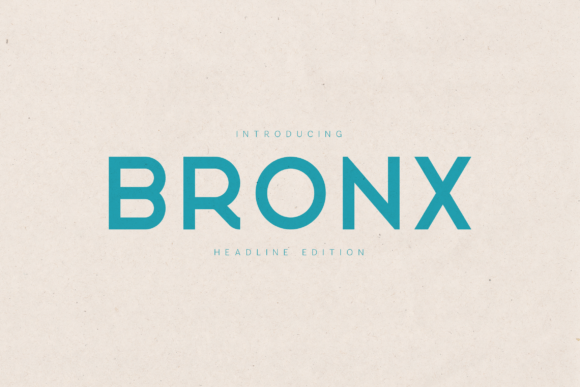
The Power of Bronx Headline: Elevate Your Design with Confidence
I still remember the frustration of working on a project, pouring my heart and soul into every detail, only to be held back by a font that just didn’t cut it. The client wanted something bold, modern, and attention-grabbing, but I was stuck with a bland, generic sans serif that failed to make an impact. That’s when I discovered Bronx Headline, a game-changing font that has since become a staple in my design toolkit.
Bronx Headline: A Modern Sans Serif Powerhouse
Bronx Headline is a bold, modern sans serif font designed specifically for powerful headlines, strong branding, and contemporary typography. Its clean geometric forms and confident letter shapes deliver clarity, impact, and versatility across both print and digital projects. This font is perfectly suited for headlines, posters, logos, editorial layouts, packaging, and modern brand identities, making it an excellent choice for fashion, lifestyle, corporate, and creative industries.
So, what makes Bronx Headline so special? Here are a few things I love about this font:
- ✨ Clean and modern design: Bronx Headline boasts a sleek, professional aesthetic that’s perfect for making a statement.
- ✅ Excellent readability: Even at smaller sizes, this font remains clear and legible, making it ideal for body text and captions.
- 💡 Versatility: From headlines and posters to logos and editorial layouts, Bronx Headline adapts seamlessly to various design applications.
- 🎨 OpenType features: This font comes with a range of OpenType features, including stylistic alternates, ligatures, and glyphs, giving you plenty of creative options.
While Bronx Headline is an exceptional font, it’s not without its quirks. Here are a few things to keep in mind:
- 🤔 Limited italic support: While the font does come with an italic style, it’s not as comprehensive as some other fonts, so be sure to check the glyphs before committing to a project.
While Bronx Headline is an exceptional font, you may want to consider the following alternatives for your design projects:
- Montserrat: A sleek, urban sans serif with a similar geometric feel to Bronx Headline. Ideal for modern branding and editorial projects.
- Arial Black: A classic, bold sans serif with a strong, confident aesthetic. Suitable for headlines, posters, and advertising.
- Akzidenz-Grotesk: A clean, minimalist sans serif with a similar industrial feel to Bronx Headline. Perfect for logos, branding, and editorial layouts.
- Futura: A geometric sans serif with a similar modern, professional aesthetic to Bronx Headline. Ideal for branding, packaging, and advertising.
The Story Behind Bronx Headline
The story behind Bronx Headline begins with a fictional designer named Alex, who set out to create a font that would make a bold statement in the world of typography. Inspired by the clean lines and geometric shapes of modern architecture, Alex crafted a font that would deliver clarity, impact, and versatility. The result is Bronx Headline, a font that has captured the hearts of designers and creatives worldwide.
| Font Name | Bronx Headline Font |
| Author | vladfedotovv |
| What is Bronx Headline? | Bronx Headline is a bold, modern sans serif font designed for powerful headlines, strong branding, and contemporary typography. |
| What design applications is Bronx Headline suitable for? | Bronx Headline is perfect for headlines, posters, logos, editorial layouts, packaging, and modern brand identities, making it an excellent choice for fashion, lifestyle, corporate, and creative industries. |
| Does Bronx Headline come with OpenType features? | Yes, Bronx Headline comes with a range of OpenType features, including stylistic alternates, ligatures, and glyphs, giving you plenty of creative options. |
| Is Bronx Headline suitable for body text? | While Bronx Headline is primarily designed for headlines and display text, its clean design and excellent readability make it suitable for body text and captions at smaller sizes. |